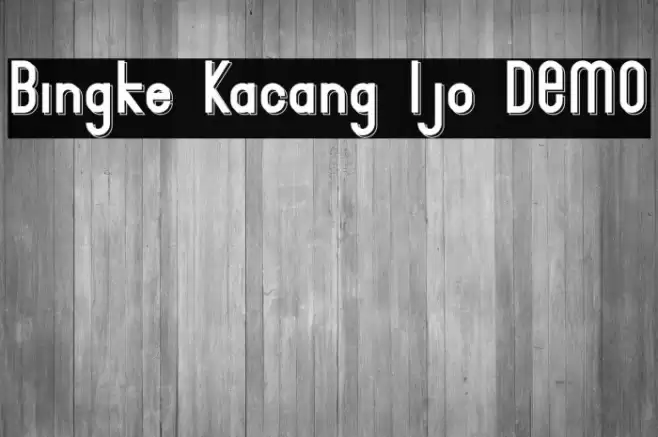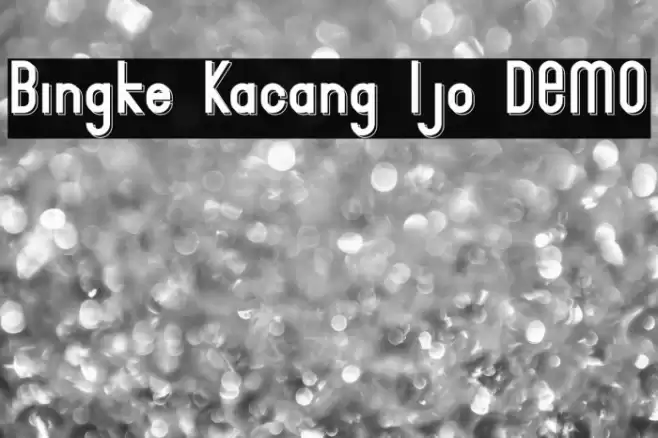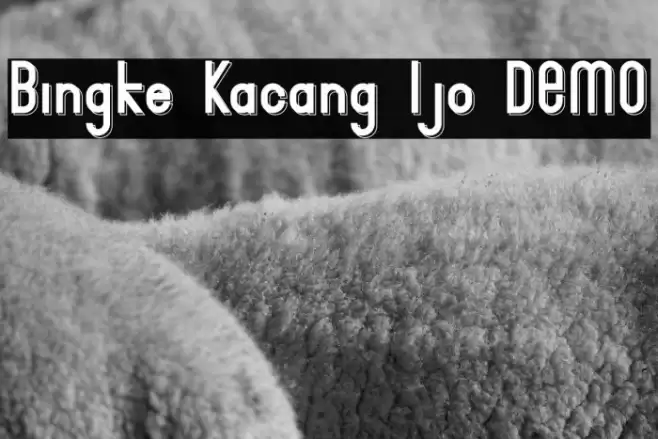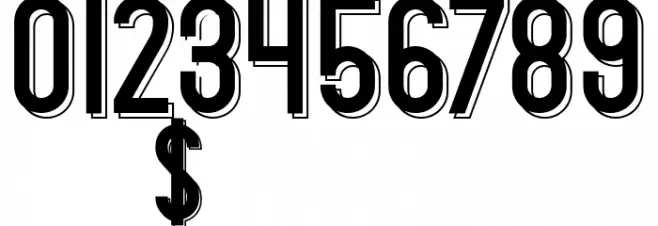
Bingke Kacang Ijo DEMO Font
Bingke Kacang Ijo DEMO Description
This font features a bold, geometric style with a distinct outline that gives it a three-dimensional effect. The uppercase and lowercase letters maintain a consistent height, creating a uniform appearance. The characters are designed with a modern, industrial feel, characterized by straight lines and sharp angles. The numbers and special characters follow the same design principles, ensuring a cohesive look across all glyphs. The font's unique style makes it suitable for eye-catching designs where a strong visual impact is desired.
A bold, geometric font with a three-dimensional outline effect from Regular fonts.
- Proposed Projects: Ideal for posters, logos, and branding materials that require a modern and striking appearance.